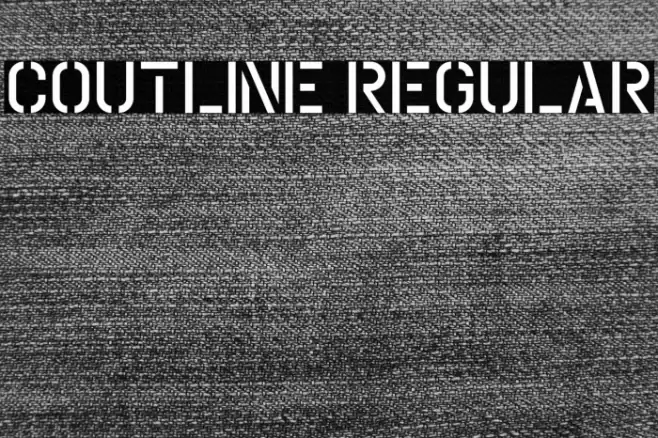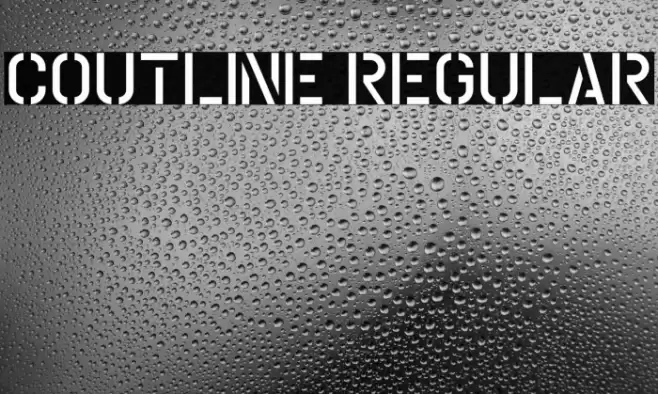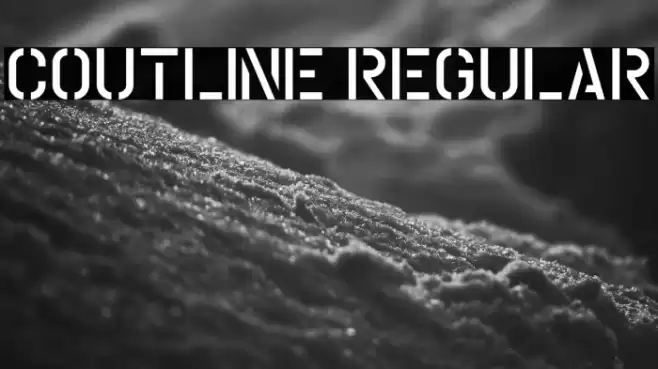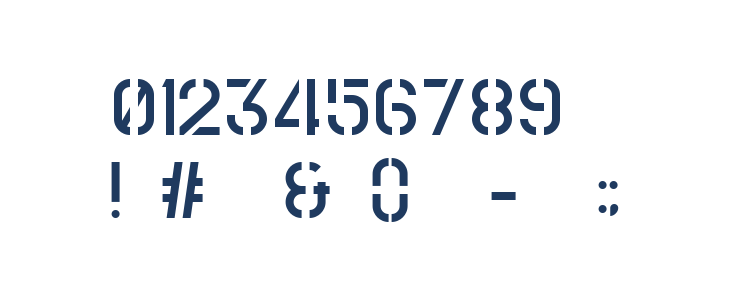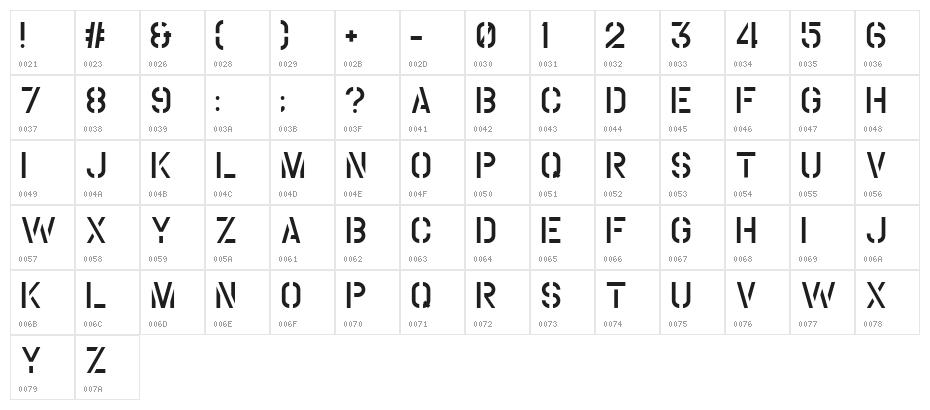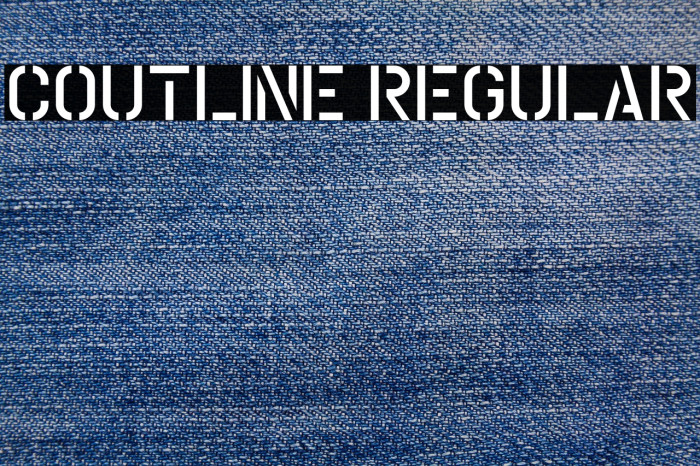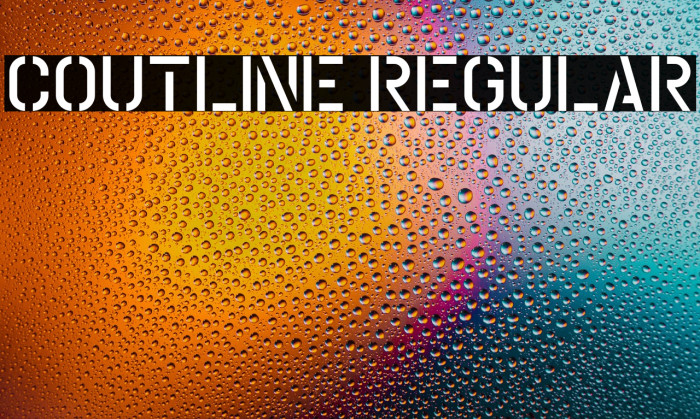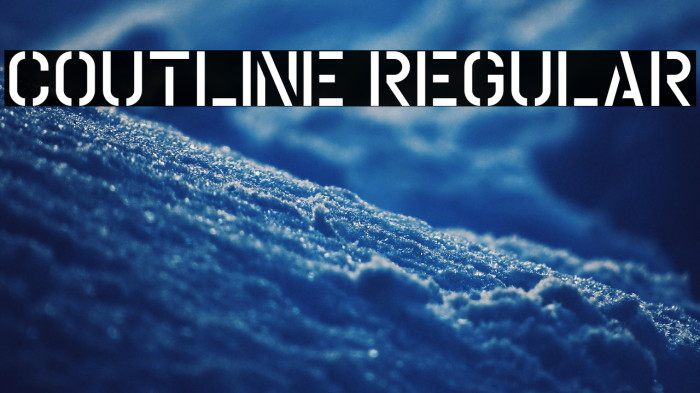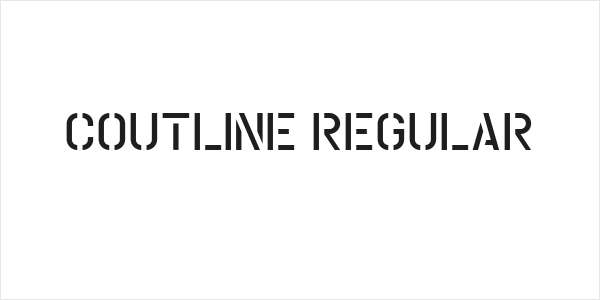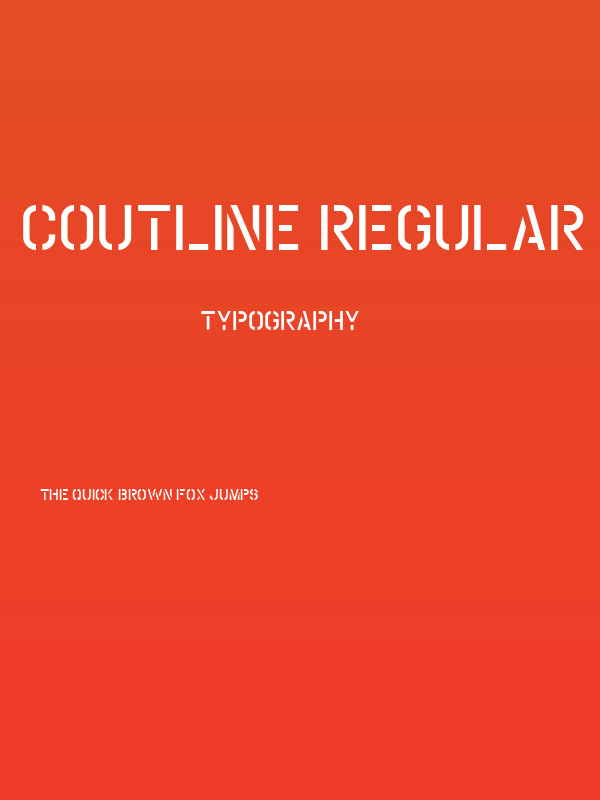
Coutline Regular Font
Coutline Regular Description
This font features a bold, geometric design with a stencil-like appearance. Each character is defined by clean, sharp edges and distinct cutouts, giving it a modern and industrial feel. The uppercase and lowercase letters maintain a consistent style, with uniform stroke widths and angular forms. The numerals and special characters follow the same design principles, ensuring a cohesive look across all elements. This font's unique style makes it stand out, while its readability remains intact due to the clear separation of each character component.
A bold, geometric stencil font with a modern industrial style from Regular fonts.
- Proposed Projects: Ideal for branding, posters, signage, and any project requiring a modern, edgy look.